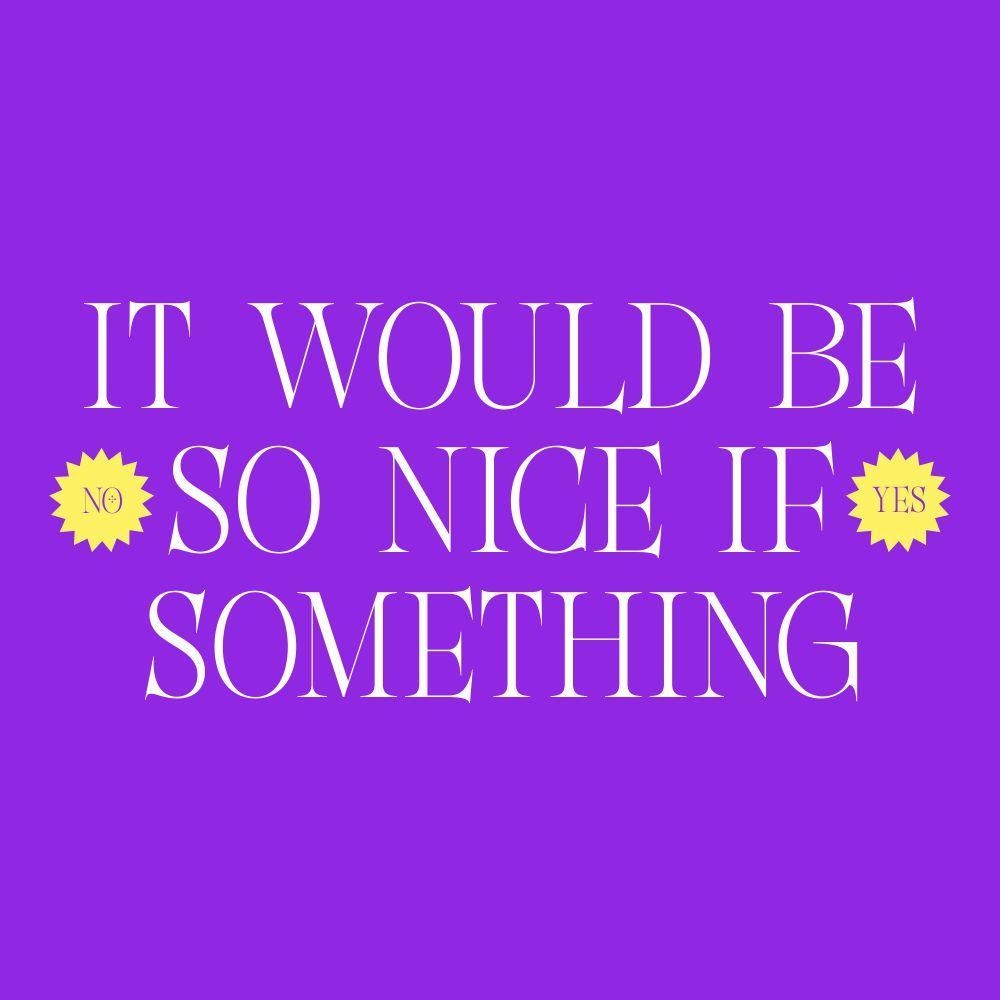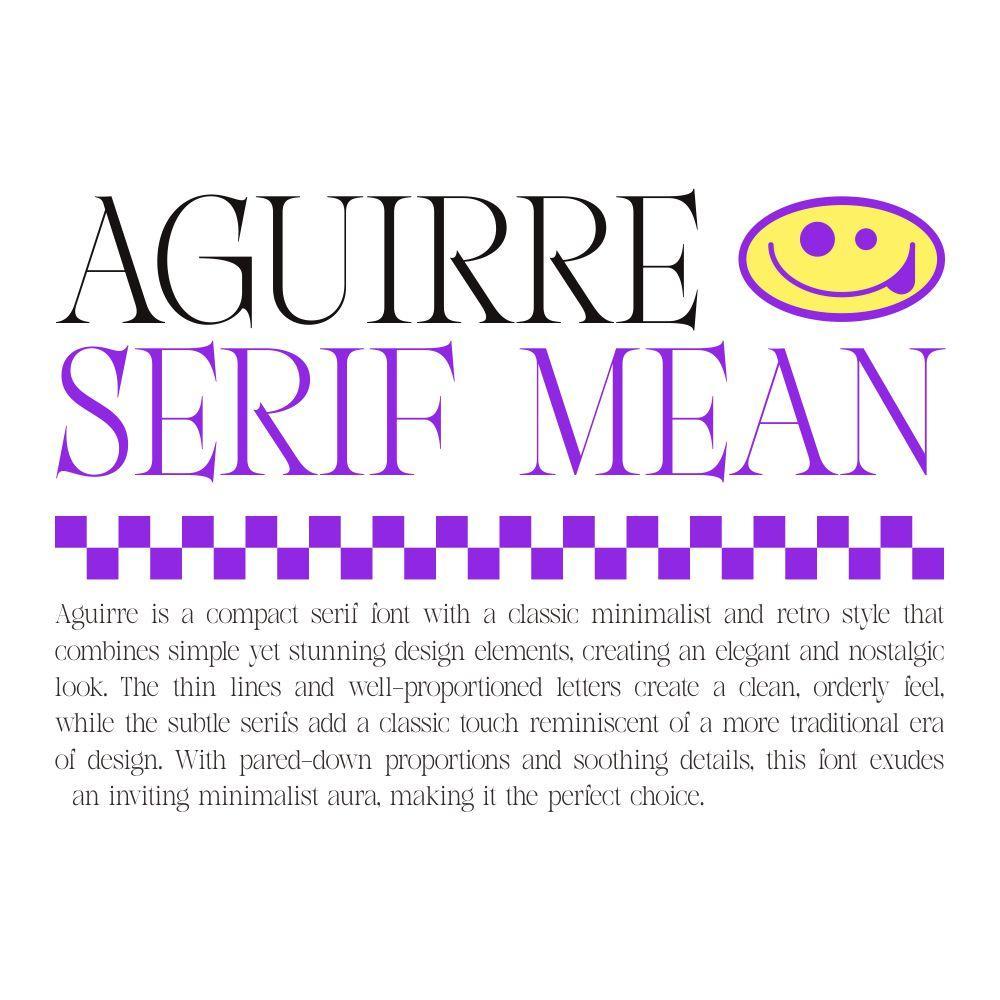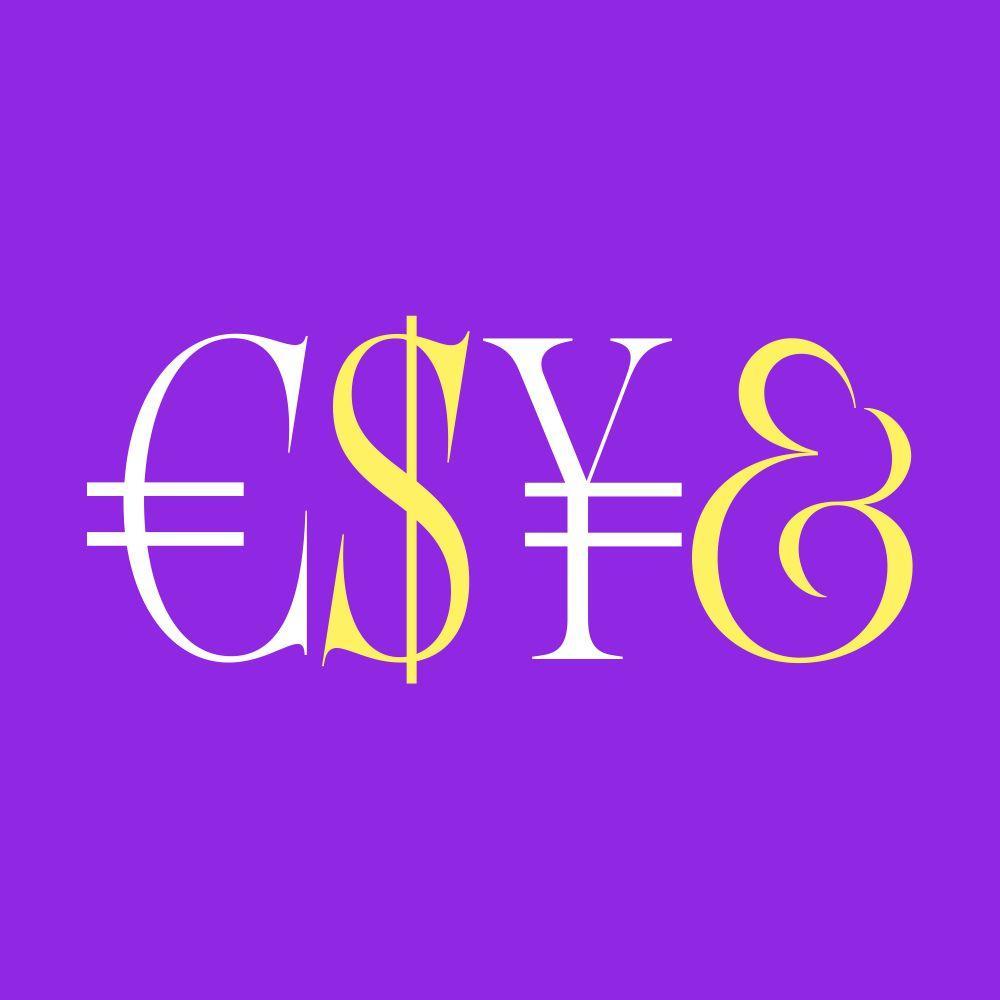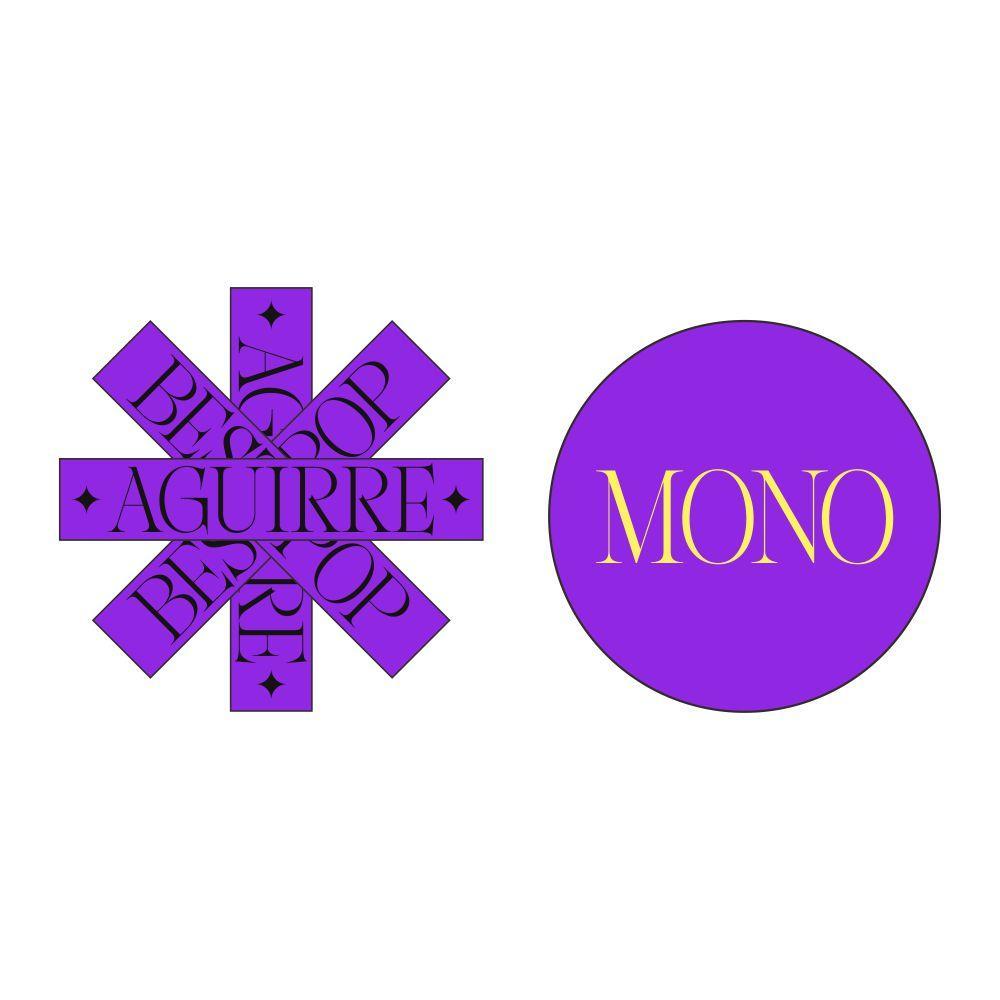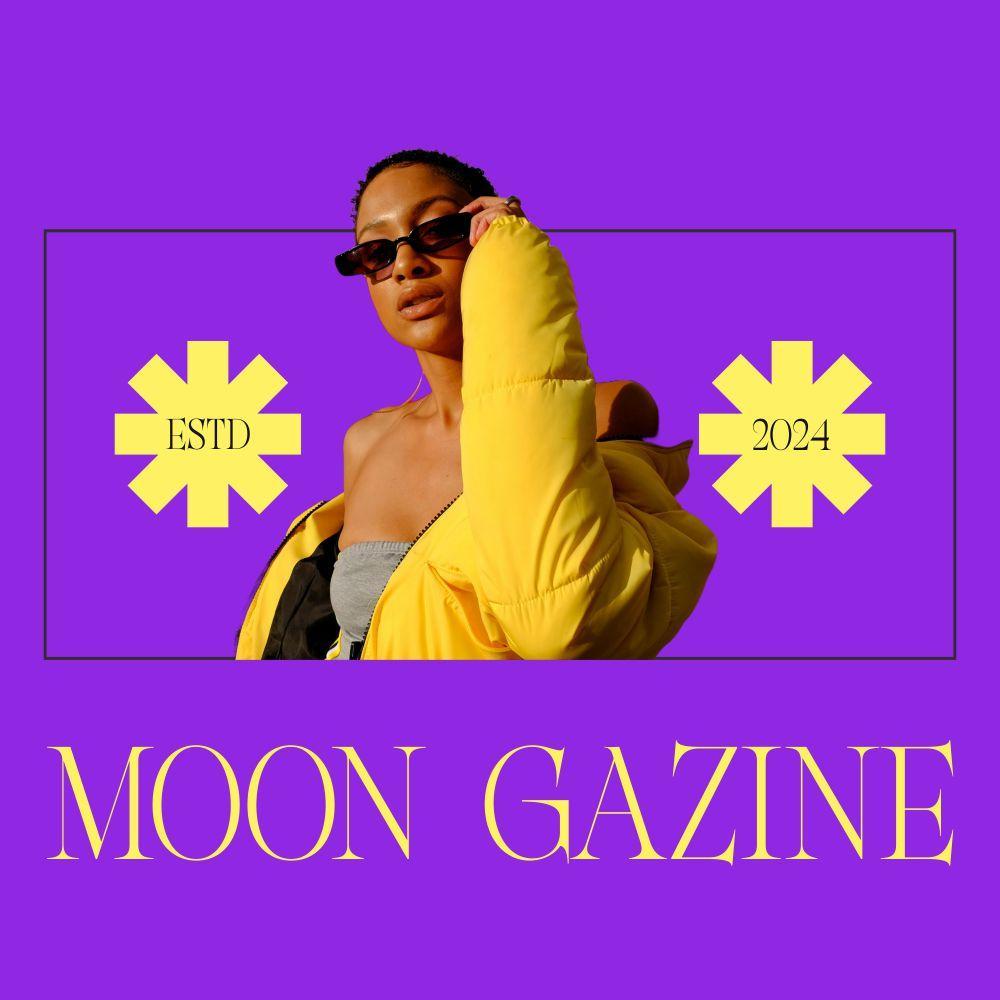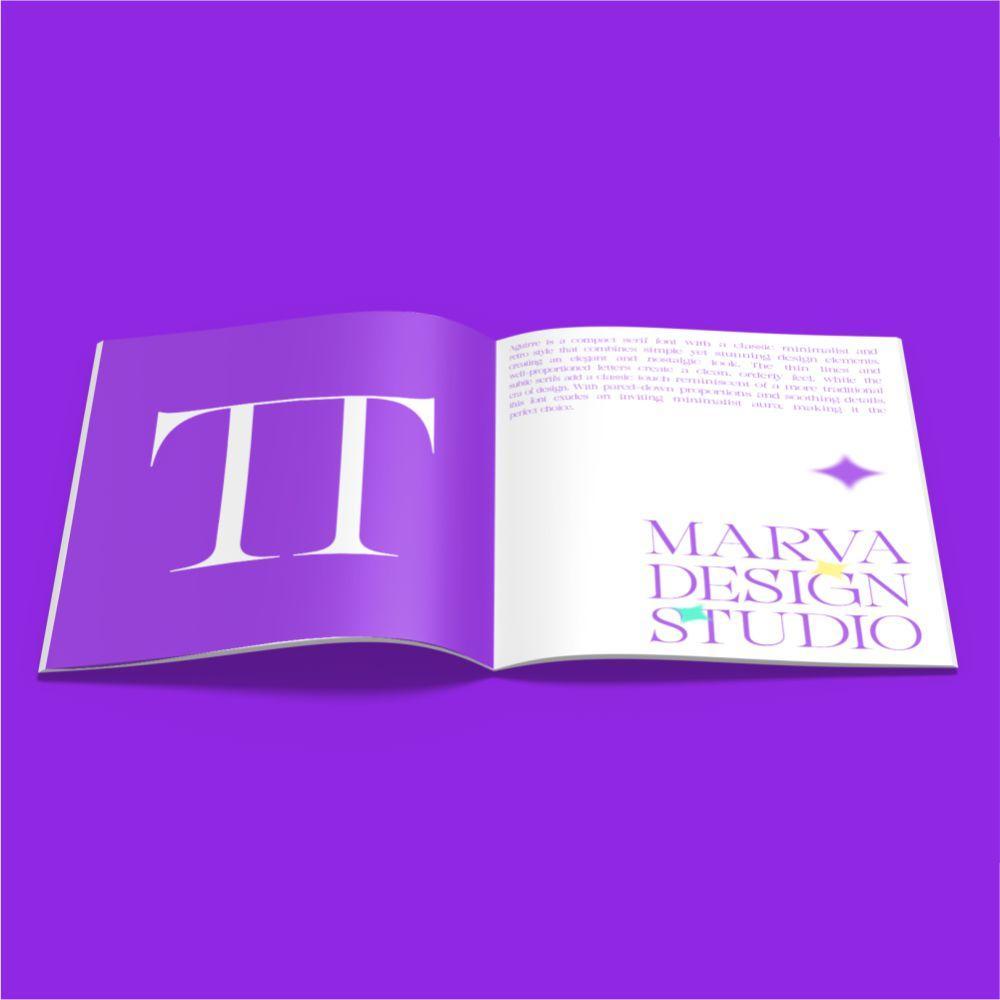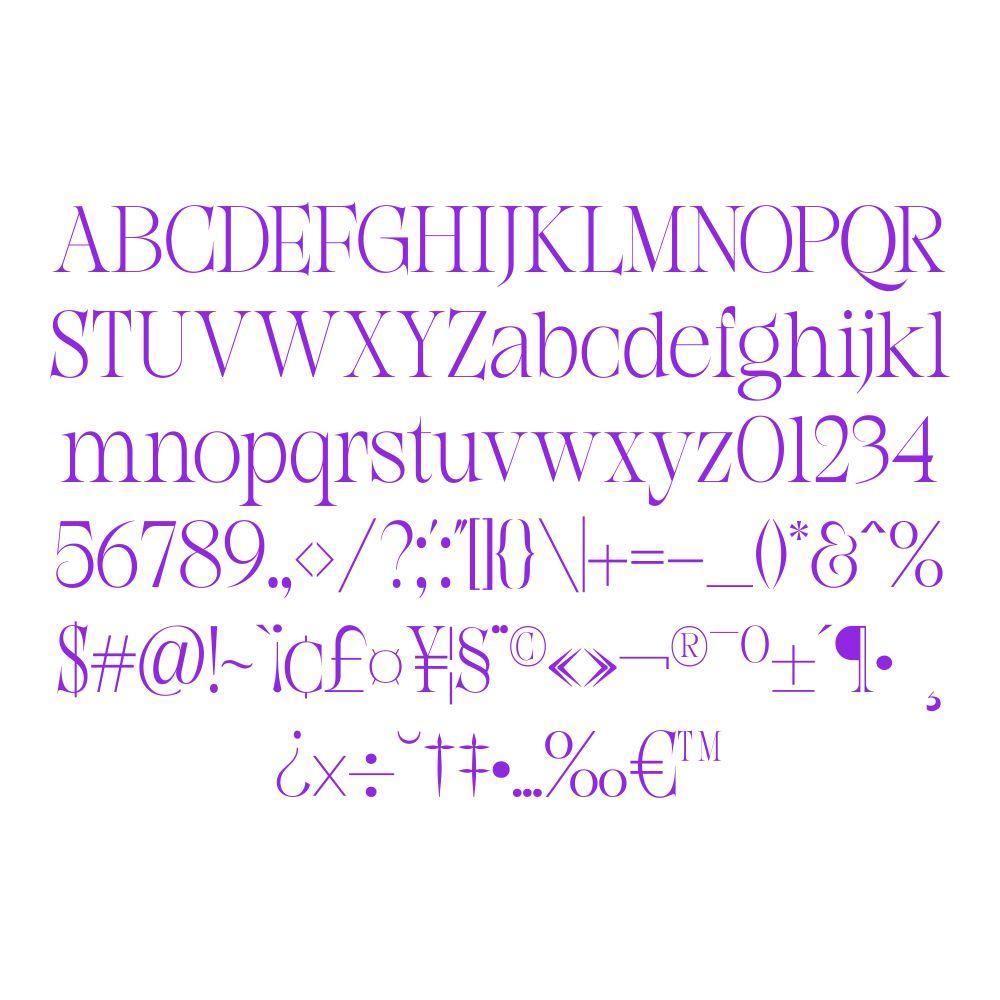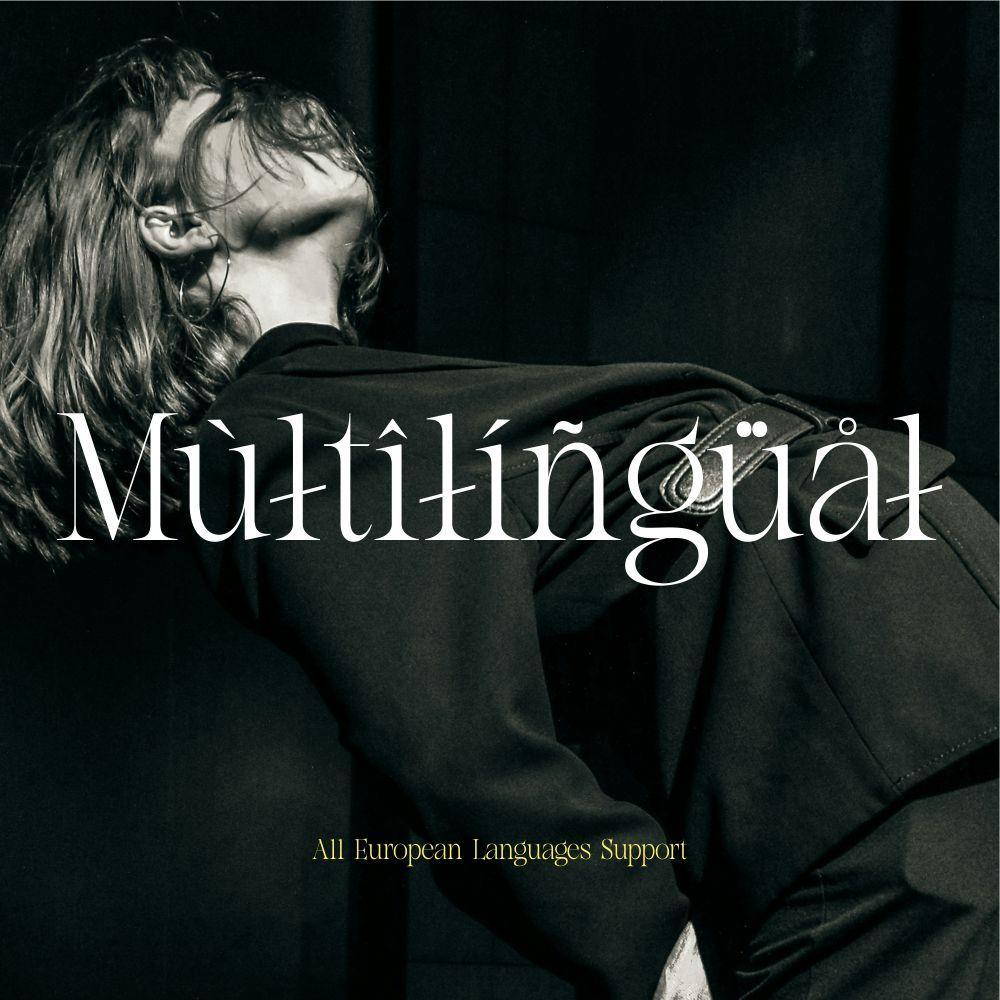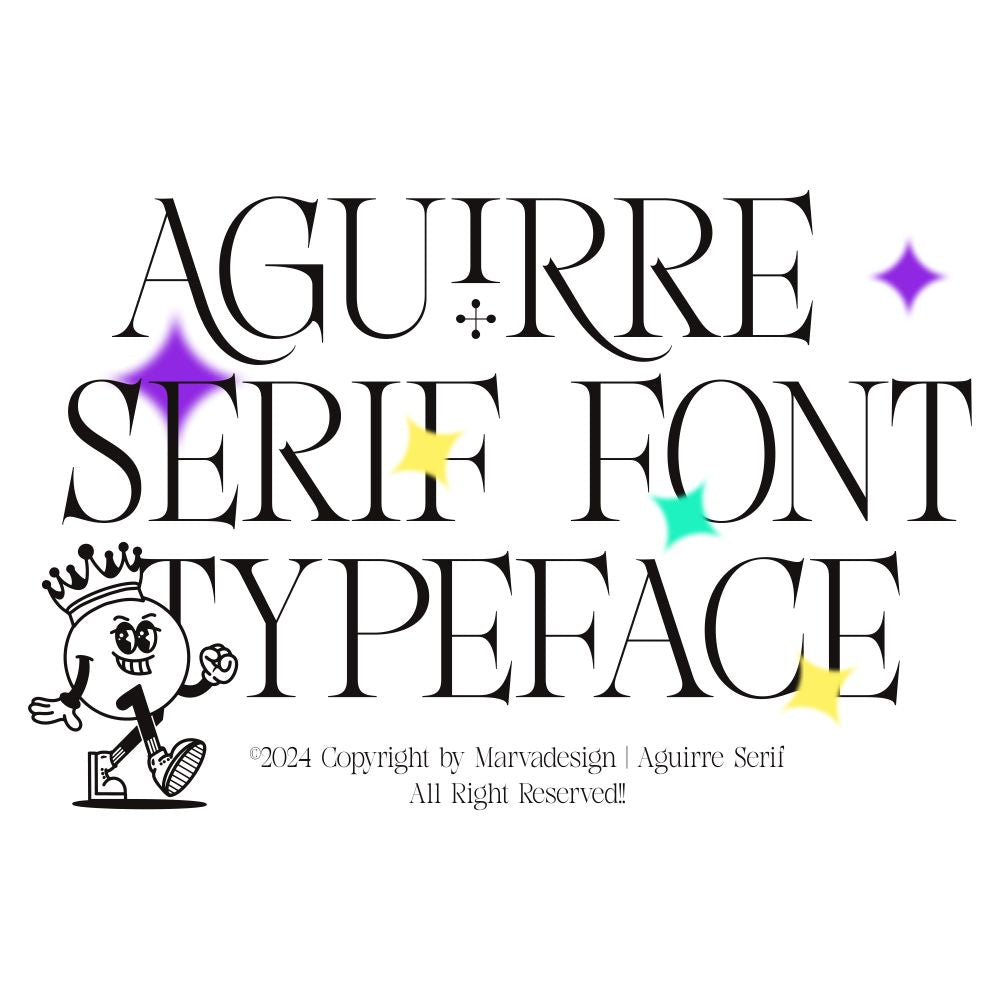
Aguirre is a compact serif font with a classic minimalist and retro style that combines simple yet stunning design elements, creating an elegant and nostalgic look. The thin lines and well-proportioned letters create a clean, orderly feel, while the subtle serifs add a classic touch reminiscent of a more traditional era of design. With pared-down proportions and soothing details, this font exudes an inviting minimalist aura, making it the perfect choice.